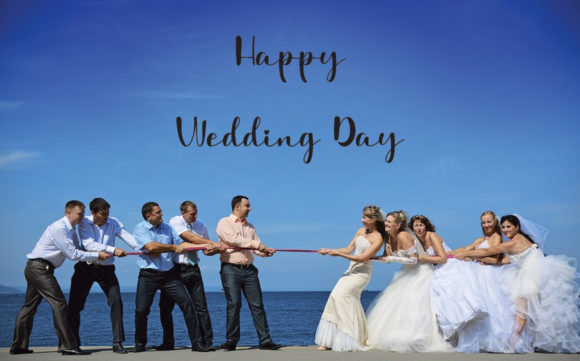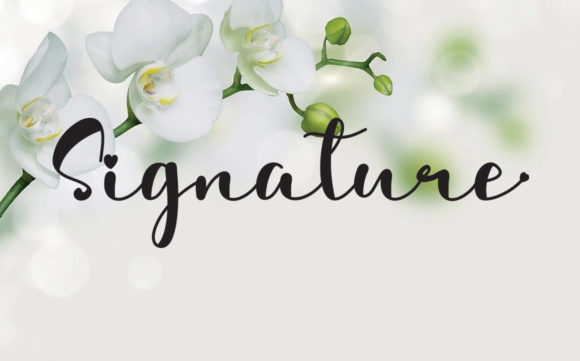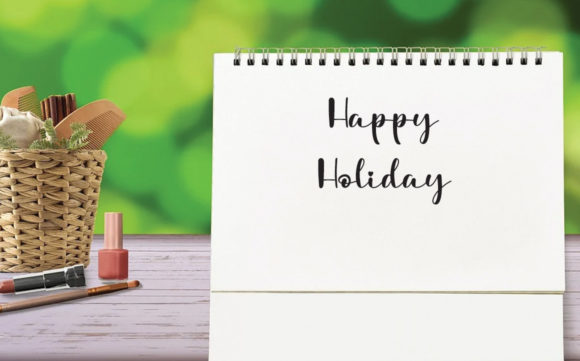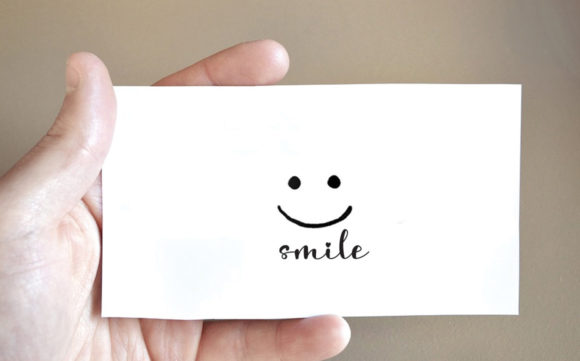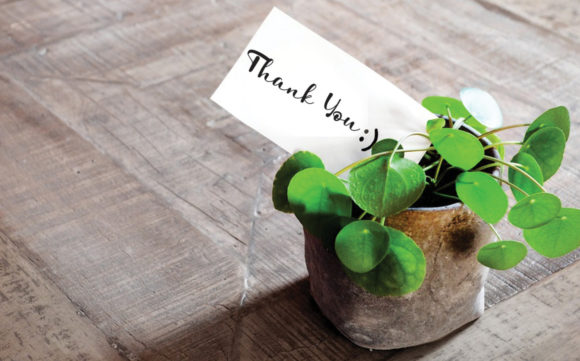
About Mandala Romantic Font
Mandala RomanticĀ is a lovely and delicate script font that exudes elegance and class. This font was particularly crafted for those who need a beautiful and refreshing look to their designs. Mandala Romantic is PUA encoded which means you can access all of the glyphs and swashes with ease!Ā